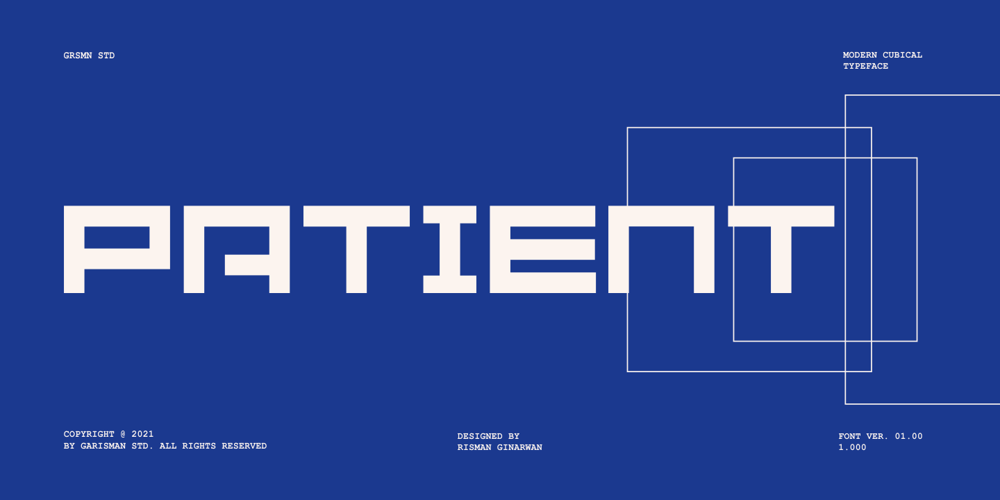
Patient Font Family was designed by Risman Ginarwan and published by Garisman Studio. Patient contains 1 styles and family package options. Patient was born in the modern era which was inspired by the letters found in various print and digital media. Comes with a modern and futuristic style that will rock your great design!It is suitable for you to use in logotype designs, posters, typography, t-shirts, tickets, and other modern designs.